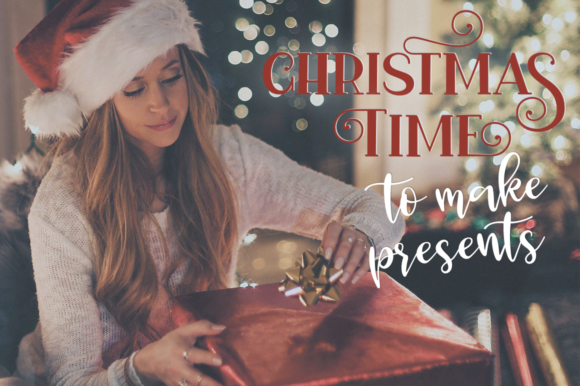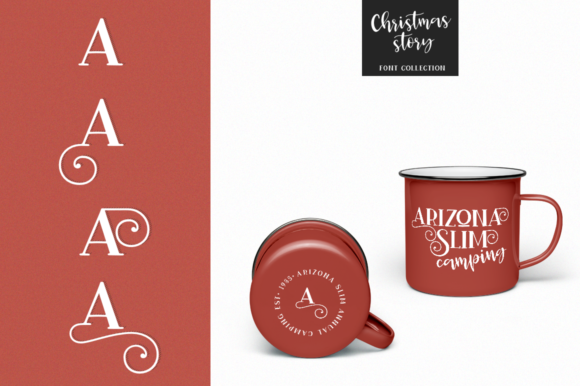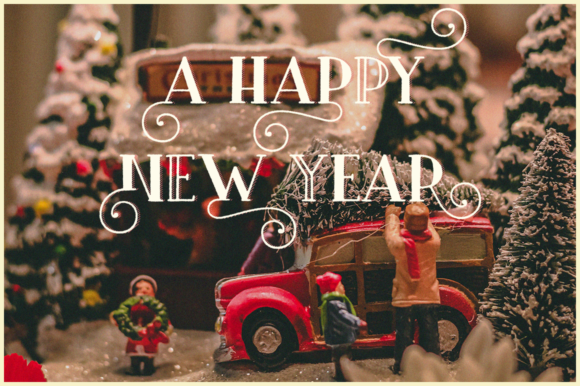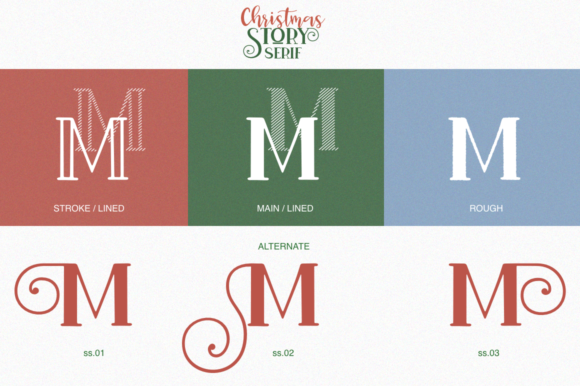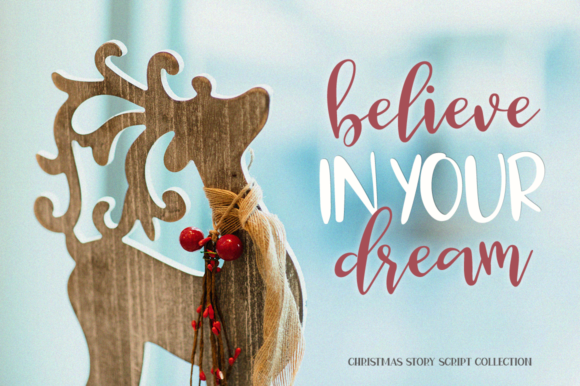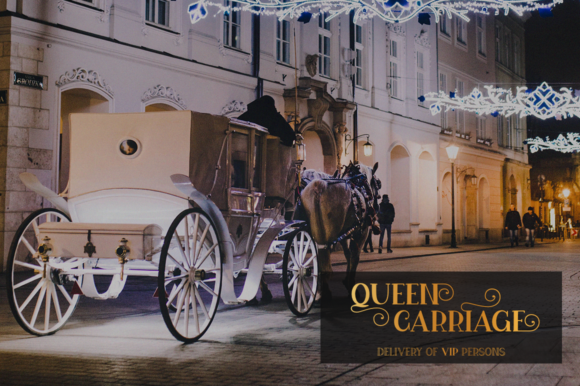
Introducing the Magical Christmas Story Font: Elevate Your Holiday Projects
The holiday season is upon us, and what better way to get into the festive spirit than with a beautiful font that captures the essence of Christmas? Look no further than the Christmas Story Font, a stunning font family that is sure to add a touch of magic to your holiday projects. This gorgeous font comes in five weights, offering versatility and flexibility to suit a wide range of design needs.
A Font Family Like No Other
The Christmas Story Font is a comprehensive font family that includes five distinct weights, ensuring that you can use it for a variety of applications. Whether you’re designing a holiday card, creating a festive poster, or crafting a merry invitation, this font family has got you covered. The several styles work perfectly together, allowing you to mix and match to create a unique and cohesive look that will make your project stand out.
As a designer or crafter, you’re always on the lookout for high-quality fonts that can help elevate your work. The Christmas Story Font is an excellent addition to your font library, offering a unique and festive touch that will set your projects apart. With its clean lines, elegant curves, and joyful vibe, this font is perfect for a wide range of holiday projects, from DIY crafts to professional design work.
Key Features of the Christmas Story Font
• Five weights to choose from: Whether you need a bold and eye-catching font or a more subtle and elegant one, the Christmas Story Font has got you covered.
• Multiple styles work perfectly together: Mix and match the different weights and styles to create a unique and cohesive look that will make your project shine.
• Clean lines and elegant curves: The Christmas Story Font features clean lines, elegant curves, and a joyful vibe that’s perfect for the holiday season.
• Perfect for a wide range of projects: From holiday cards and posters to invitations and DIY crafts, this font is versatile enough to suit any project.
Tips for Using the Christmas Story Font
To get the most out of the Christmas Story Font, here are a few tips to keep in mind:
• Experiment with different weights and styles: Don’t be afraid to try out different combinations of weights and styles to find the perfect look for your project.
• Pair with complementary fonts: The Christmas Story Font works beautifully with other fonts, so don’t be afraid to experiment with different pairings to create a unique look.
• Use for headlines and body text: The Christmas Story Font is versatile enough to use for both headlines and body text, making it a great all-around font for your holiday projects.
Font Name Christmas Story Font
Author Pasha Larin
The Christmas Story Font is a beautiful and versatile font family that’s perfect for designers and crafters looking to add a touch of holiday magic to their projects. With its five weights, multiple styles, and joyful vibe, this font is sure to become a staple in your font library. So why wait? Download the Christmas Story Font today and start creating your own festive and fun holiday projects!
Whether you’re a seasoned designer or a crafty DIY enthusiast, the Christmas Story Font is sure to inspire your creativity and help you create projects that are merry and bright. So go ahead, get creative, and make this holiday season one to remember with the Christmas Story Font!